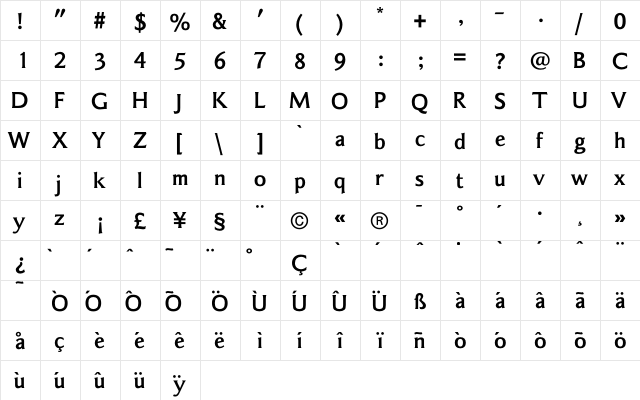
ChaseBd Regular
Design Context for ChaseBd Typeface
ChaseBd is a composed and adaptable typeface that performs quietly and consistently across a wide range of design contexts.